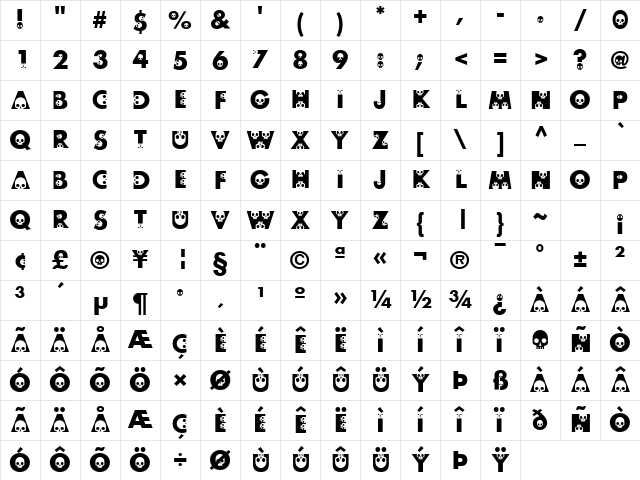
Complete skullphabet Bold glyph index. Displaying only characters natively supported by skullphabet Bold font.
skullphabet is a composed and adaptable typeface that performs quietly and consistently across a wide range of design contexts. Its bold stroke weight gives it real presence on the page.